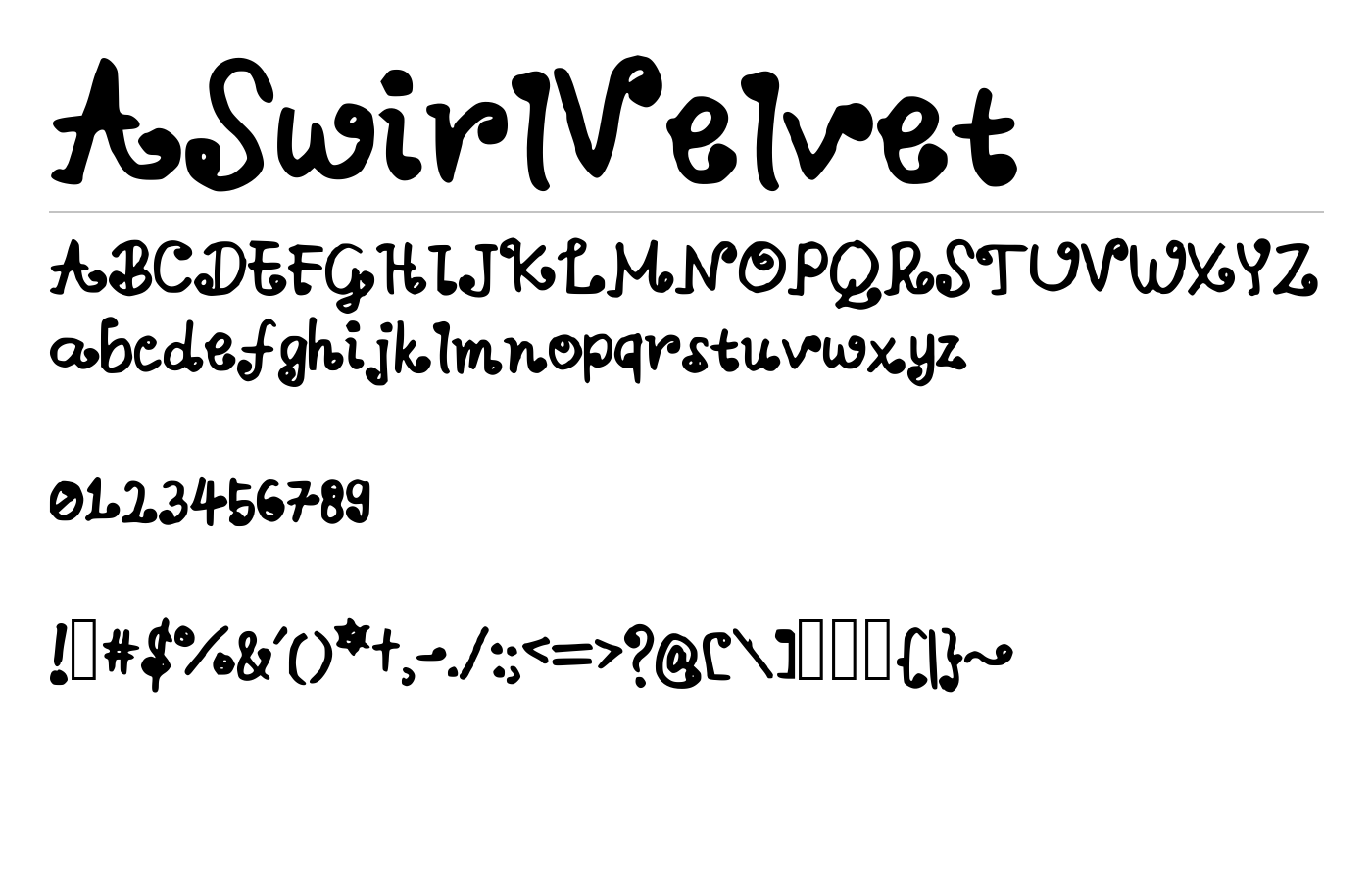
ASwirlVelvet is a playful and whimsical handwritten font featuring bold, irregular strokes and quirky letterforms with unique swirls and curls. Its casual and friendly style is perfect for creative projects, children’s books, posters, and branding that seeks a fun, informal vibe. This font stands out with its lively personality, making it ideal for eye-catching headlines and decorative uses.
ASwirlVelvet Font
About ASwirlVelvet Font